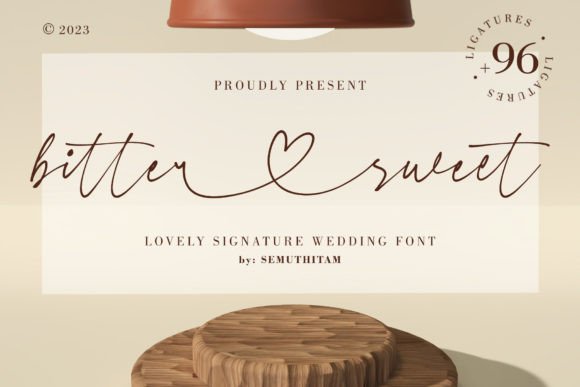
Bitter Sweet Font: The Perfect Choice for Your Special Occasions
The Bitter Sweet Font is a beautiful and elegant signature font that has gained popularity among designers and crafty individuals. Its unique blend of sweetness and bitterness makes it a versatile font that can be used for various purposes, from wedding invitations to business cards. In this article, we will explore the features and benefits of the Bitter Sweet Font and why it’s an excellent choice for your branding and printing needs.
What is Bitter Sweet Font?
Bitter Sweet Font is a lovely signature wedding font that exudes elegance and sophistication. It’s a meticulously crafted font that combines the perfect balance of sweetness and bitterness, making it a standout among other fonts. The font is designed to be versatile and can be used for various purposes, including wedding invitations, business cards, and other print materials.
Uses of Bitter Sweet Font
The Bitter Sweet Font is a versatile font that can be used for various purposes, including:
- Wedding Invitations: The font’s elegant and sophisticated design makes it perfect for wedding invitations, adding a touch of romance and luxury to your special day.
- Business Cards: The Bitter Sweet Font is also suitable for business cards, making it an excellent choice for professionals who want to make a lasting impression.
- Branding: The font’s unique design makes it an excellent choice for branding purposes, helping you to establish a strong and recognizable identity for your business.
- Print Materials: The Bitter Sweet Font can also be used for other print materials, such as brochures, flyers, and posters.
Benefits of Bitter Sweet Font
The Bitter Sweet Font offers several benefits, including:
- Elegance and Sophistication: The font’s elegant and sophisticated design makes it perfect for special occasions and professional settings.
- Versatility: The Bitter Sweet Font is a versatile font that can be used for various purposes, making it an excellent addition to your font collection.
- Easy to Read: The font is easy to read, making it perfect for body text and headings.
- Unique Design: The Bitter Sweet Font has a unique design that sets it apart from other fonts, making it an excellent choice for those who want to make a statement.
Why Choose Bitter Sweet Font?
There are several reasons why you should choose the Bitter Sweet Font for your branding and printing needs:
- Quality: The Bitter Sweet Font is a high-quality font that is designed to meet the needs of designers and crafty individuals.
- Love and Meticulousness: The font is created with love and meticulousness, ensuring that every detail is perfect.
- Perfect for Special Occasions: The Bitter Sweet Font is perfect for special occasions, such as weddings and anniversaries.
- Professionalism: The font’s elegant and sophisticated design makes it perfect for professional settings, such as business cards and brochures.
In conclusion, the Bitter Sweet Font is a beautiful and elegant signature font that is perfect for special occasions and professional settings. Its unique design, versatility, and ease of use make it an excellent choice for branding and printing needs. Whether you’re a designer or a crafty individual, the Bitter Sweet Font is an excellent addition to your font collection.